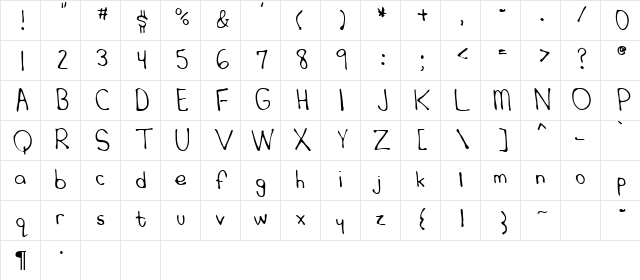
Carnes Regular
Design Context for Carnes
Carnes is a composed and adaptable typeface that performs quietly and consistently across a wide range of design contexts.
Pro Tip: Use Carnes in both headline and body roles to test its range before committing to a single application.